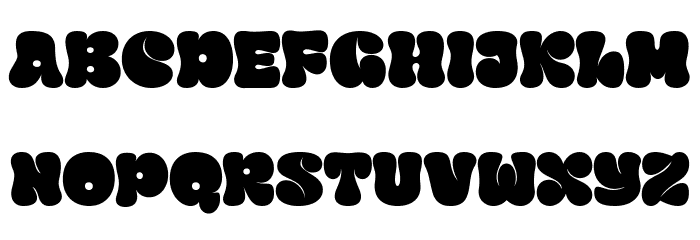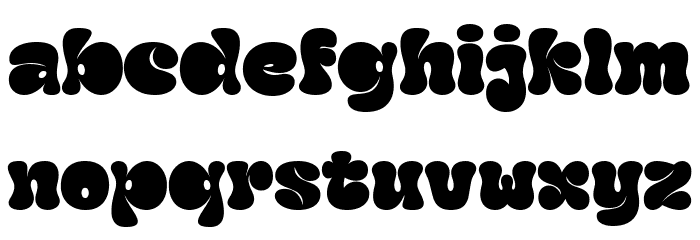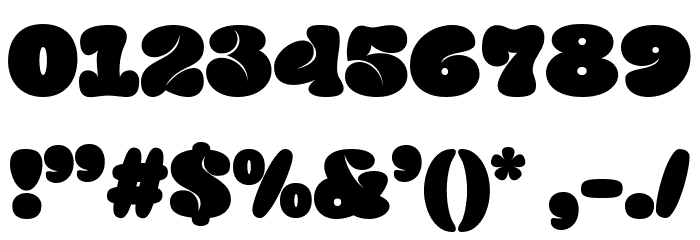
Kren Regular Font
This font features a bold and playful design with rounded, bubbly characters that create a sense of fun and whimsy. The letters are thick and have a consistent weight throughout, giving them a strong presence. The style is reminiscent of retro or vintage aesthetics, often seen in designs from the 1960s and 1970s. The characters are tightly spaced, enhancing the boldness and making it ideal for attention-grabbing headlines or logos. The font includes a full set of uppercase and lowercase letters, numbers, and a variety of special characters, ensuring versatility in design applications.
A bold, playful font with rounded, bubbly characters perfect for retro designs.
- Font: Kren Regular
- Proposed Projects: Ideal for retro-themed posters, playful branding, children's book covers, and eye-catching headlines.
- Category: Decorative/Display
- Character Spacing: Tight
- Overall Style: Vintage